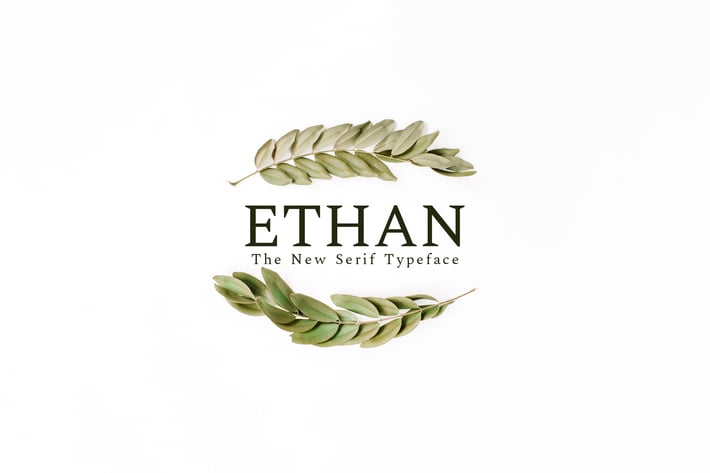
Ethan Serif Font Family
Ethan Serif Font Family is decorative and beautiful serif font family of 6 weights and it features unique and modern serif look and feel.
Perfect for gorgeous logos & titles, layouts & content, or large & small scale, It looks gorgeous in all caps with a wide-set spacing if you want to try a classy look, or beautiful on its own in capital and lowercase letters for something completely timeless.
- Font Weight: Regular, Light, Medium, Outline, Bold and Black
Aderes Font Features:
- Uppercase Multilingual Letters
- Lowercase Multilingual Letters
- Non English Characters ( Latin Extended A )